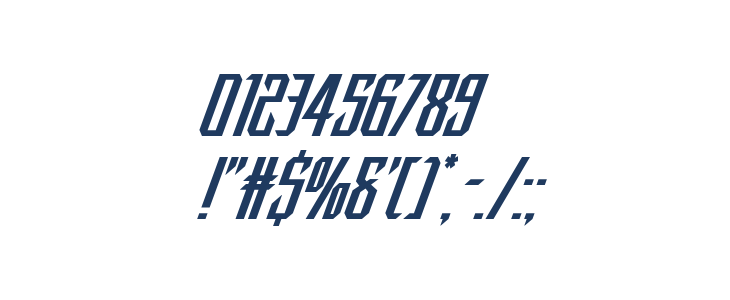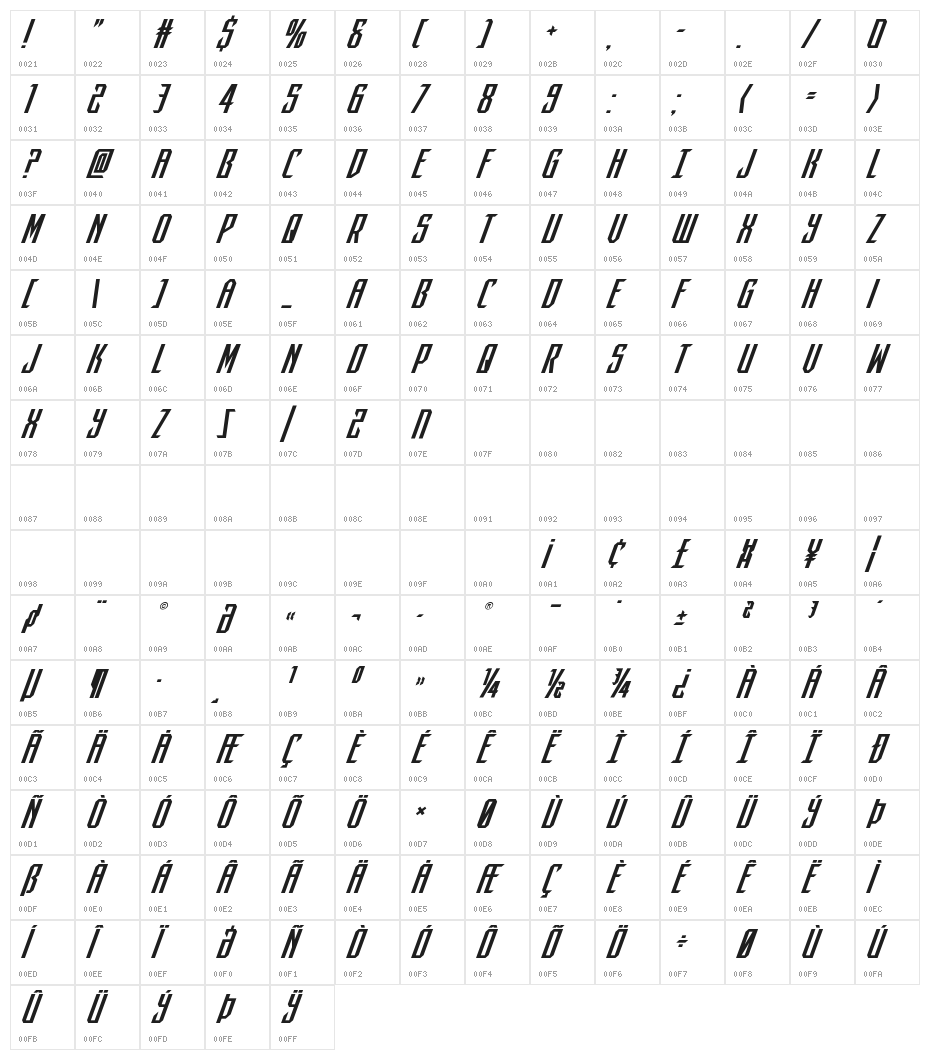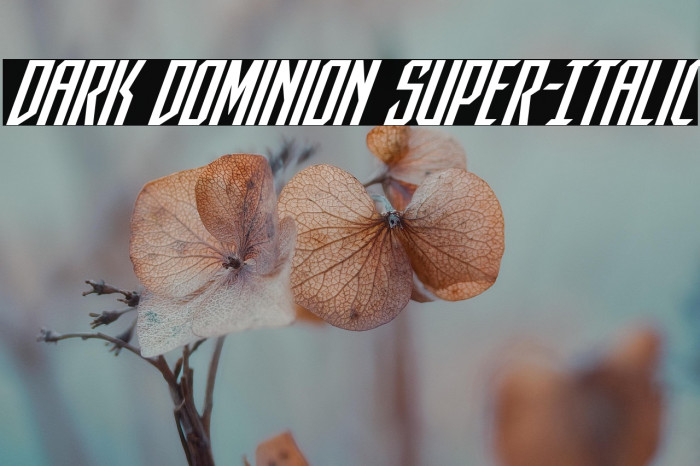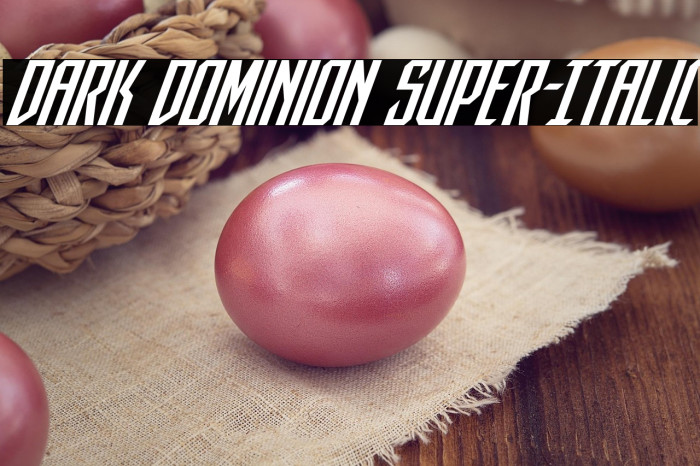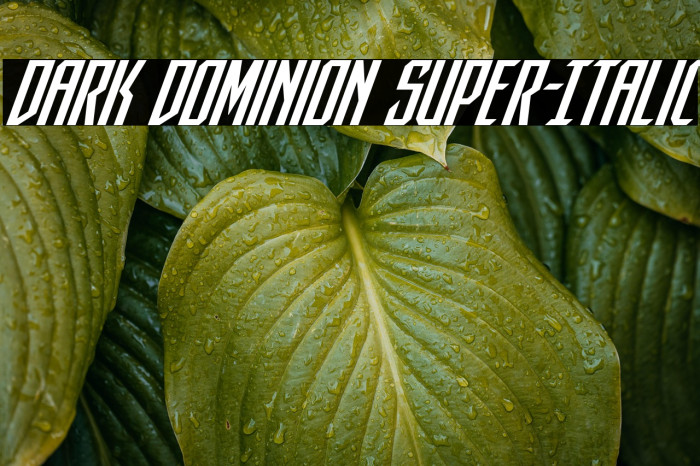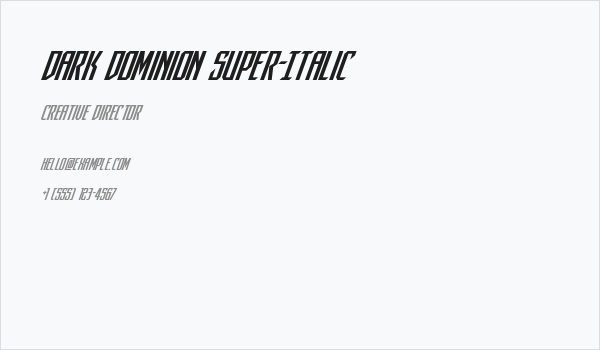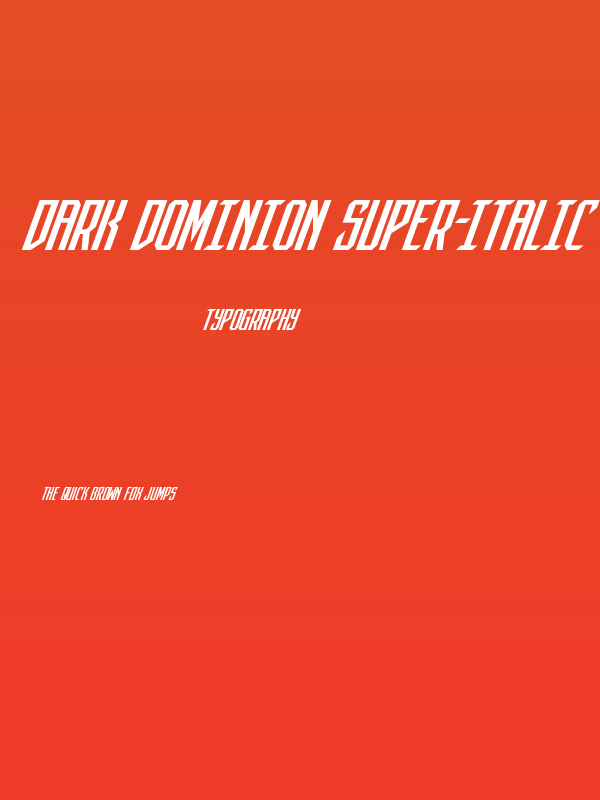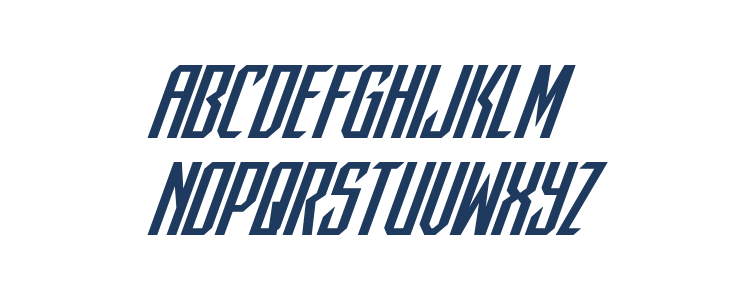
Dark Dominion Super-Italic Font
Dark Dominion Super-Italic Description
This font exhibits a bold, dynamic style with a strong italic slant, giving it a sense of motion and energy. The characters are sharply angled, with thick strokes that convey a sense of power and urgency. The uppercase and lowercase letters maintain a consistent style, with the uppercase being particularly striking due to their size and angularity. The numbers and special characters follow the same design principles, ensuring uniformity across all glyphs. This font is ideal for projects that require a bold statement or a modern, edgy look.